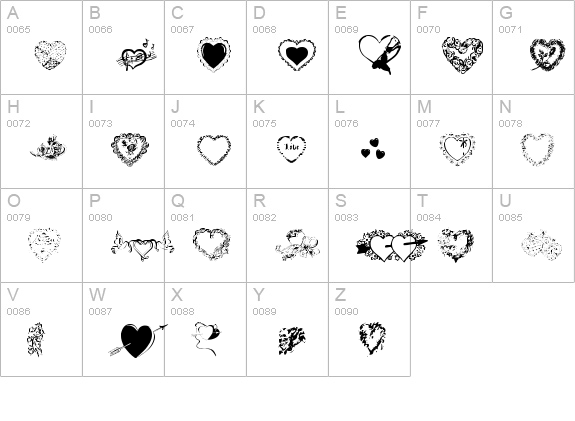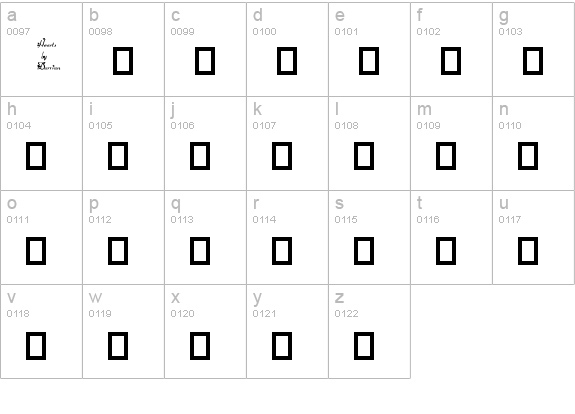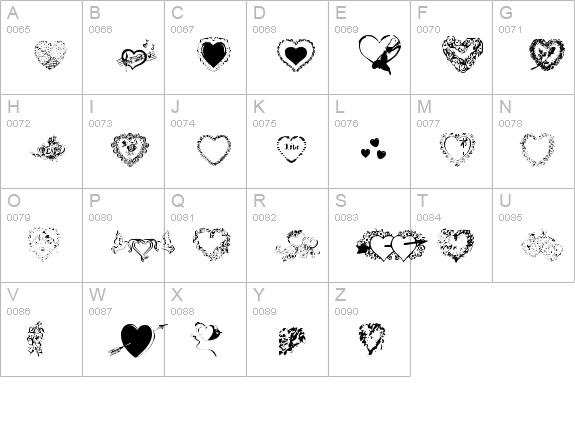
Hearts by Darrian is a delightful and charming font that will surely capture your heart. With its playful and whimsical design, this font is perfect for adding a touch of romance and sweetness to any project. The letters in Hearts by Darrian are uniquely shaped, with each character resembling a heart. This gives the font a distinctive and lovable quality that will surely make your designs stand out. Whether you're creating a Valentine's Day card, a wedding invitation, or simply want to add a touch of love to your branding, this font is the perfect choice. But what's even better is that Hearts by Darrian is available for free! You heard it right, this amazing font can be yours without spending a single penny. Simply head over to FontsMarket.com, and you'll find this font available for download, ready to bring a dose of love and joy to your creative endeavors. Not only does Hearts by Darrian offer a stunning design, but it also provides a wide range of characters and glyphs, making it versatile and suitable for various projects. Whether you're looking for uppercase letters, lowercase letters, numbers, or punctuation, this font has got you covered. So why wait? Get your hands on Hearts by Darrian today and let its lovable and enchanting design inspire your next masterpiece. Download it for free at FontsMarket.com and infuse your designs with a touch of love and romance.